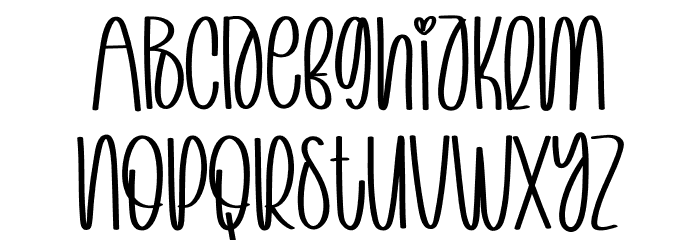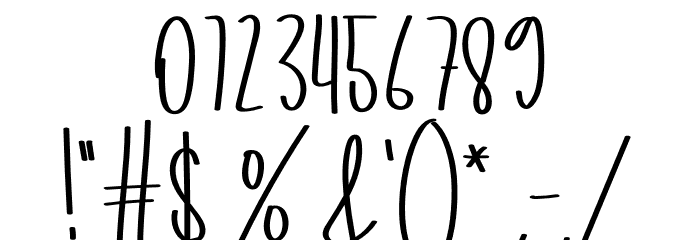
Christmas Designer Font
This playful and whimsical font features tall, narrow characters with a handwritten style. The letters are slightly slanted, giving a casual and friendly appearance. Unique heart-shaped details are incorporated into some of the characters, adding a charming and festive touch. The strokes are consistent in width, providing a clean and modern look. The font includes both uppercase and lowercase letters, numbers, and a variety of special characters, making it versatile for different design needs.
A playful, handwritten font with heart details and consistent stroke width.
- Font: Christmas Designer
- Proposed Projects: Ideal for holiday cards, festive invitations, playful branding, and children's book covers.
- Category: Handwritten
- Width: Condensed
- Use Case: Headlines, Logos, Invitations